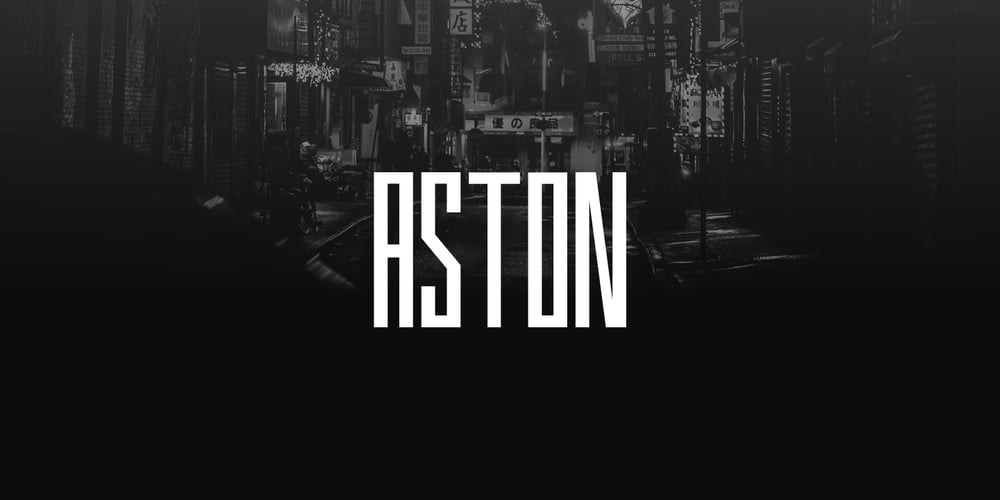
Aston Display
Aston Display font
Aston Display Font Family was designed by Jean Johnson and published by Designova. Aston Display contains 6 styles and family package options. ASTON is an extremely unique all-caps display typeface inspired by ultra-modern urban design trends. This typeface is perfect for headlines, big text, branding, logotypes & display usage. This font is also perfect for creating outstanding logos, promotional content and marketing graphics that can grab the attention of your clients. Please see the examples shown above to get an idea about the capability of this typeface.